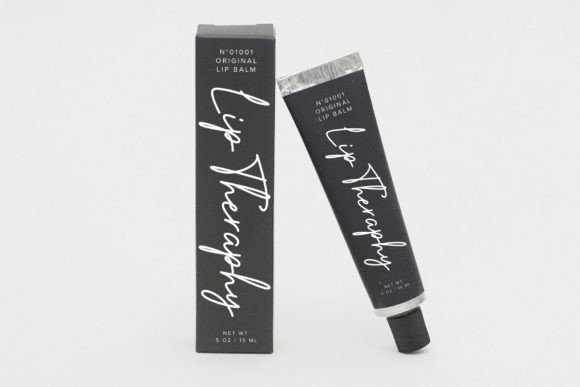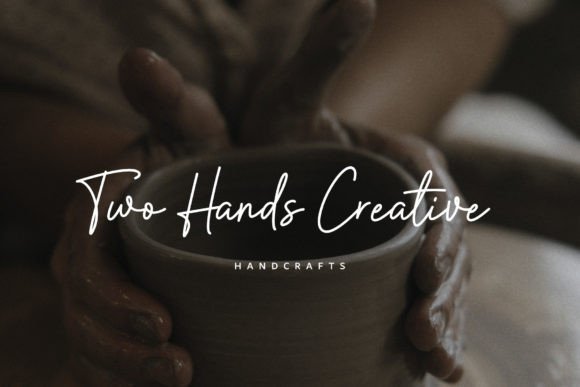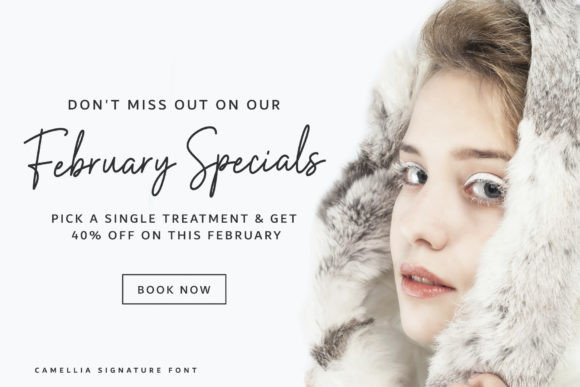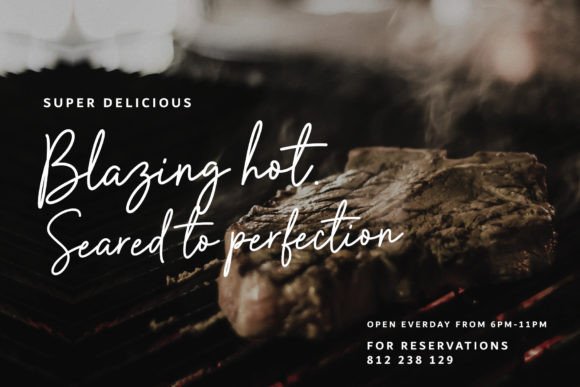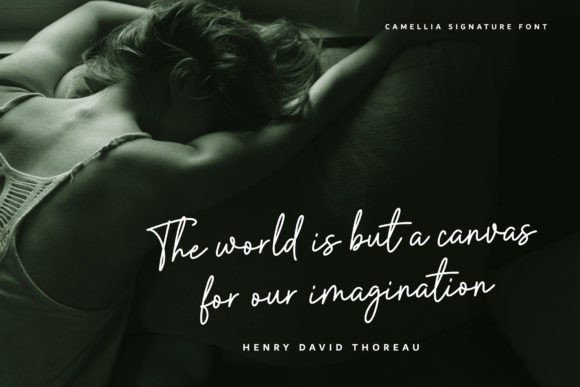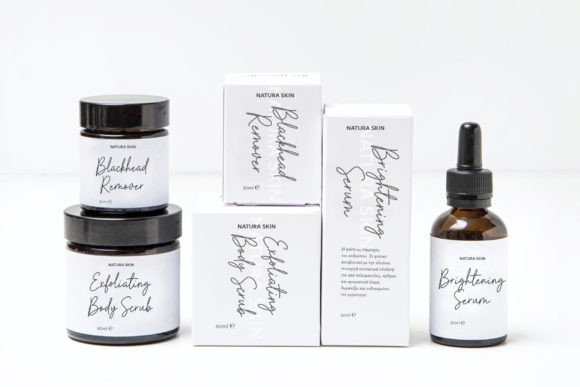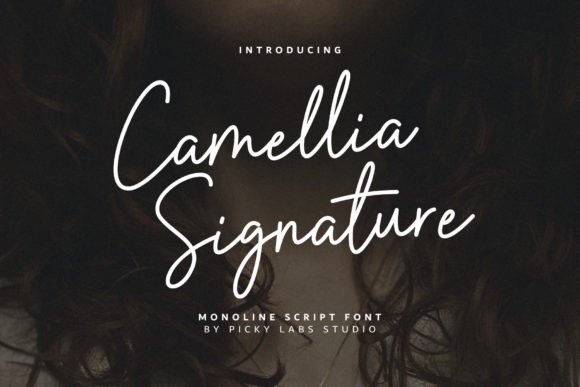
The Elusive Perfect Font: My Journey with Camellia Signature
I still remember the design project that led me to discover Camellia Signature. I was working on a luxury brand’s invitation suite, and my client was adamant that the font had to be ‘elegant, sophisticated, and unique.’ I scoured font libraries, tried out dozens of options, but nothing seemed quite right. That was until I stumbled upon Camellia Signature – a stunning script font that exuded the exact qualities my client was looking for.
With its smooth lines and gentle curves, Camellia Signature added a touch of luxury to the design that I knew would impress. And impress it did – my client loved it, and the invitations ended up being a huge hit. Since then, I’ve made it a point to use Camellia Signature in as many projects as possible, and I’m excited to share my experience with you.
An Honest Review of Camellia Signature
• ✨ Elegant and sophisticated design that’s perfect for luxury brands
• ✅ Smooth lines and gentle curves that make it a joy to read
• 💫 Unique flair that sets it apart from other script fonts
• 📈 Highly versatile and can be used for a variety of design projects, from branding to social media graphics
While Camellia Signature is an amazing font, it’s not without its quirks. Here are a few things to keep in mind:
• 🤔 It can be a bit tricky to read at very small sizes, so make sure to test it out before committing to a specific size.
• ⚠️ Some of the OpenType features can be a bit finicky, especially in certain design software.
The Story Behind Camellia Signature
Camellia Signature was designed by a talented typographer who wanted to create a font that would evoke the elegance and sophistication of luxury brands. Inspired by the delicate curves of camellia flowers, the designer crafted a font that would be both beautiful and functional. And so, Camellia Signature was born – a stunning script font that’s perfect for designers, crafters, and creative hobbyists alike.
Q: What makes Camellia Signature so special?
A: Camellia Signature is special because of its unique blend of elegance and sophistication. Its smooth lines and gentle curves make it perfect for luxury brands, invitations, and social media graphics.
Q: Is Camellia Signature difficult to read?
A: Camellia Signature can be a bit tricky to read at very small sizes, but at larger sizes, it’s clear and easy to read.